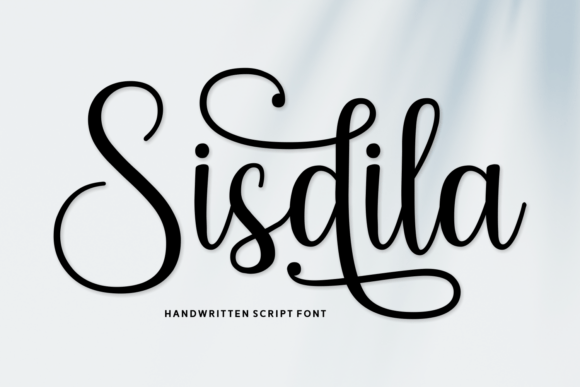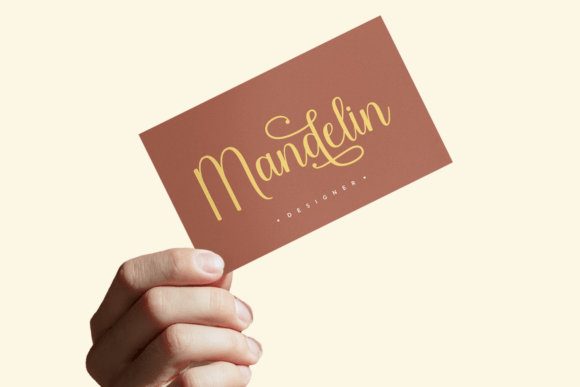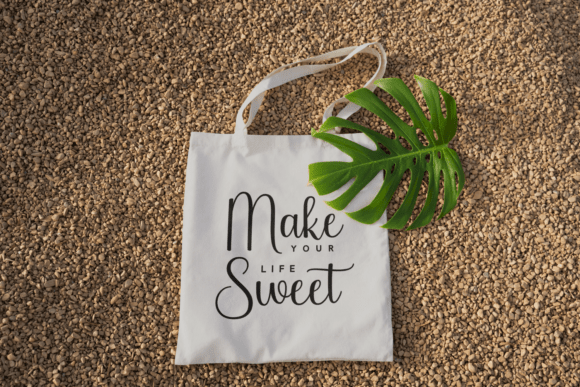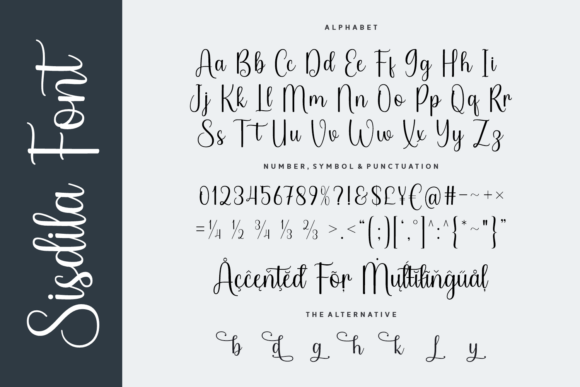
Sisdila Font: Elegant Handwritten Script for Wedding & Logo Design
About the Sisdila Font
The Sisdila Font offers a perfect balance of form and function for your design needs. Sisdila is a graceful handwritten script font with flowing curves and stylish swashes that exude charm and sophistication. Its smooth strokes and well-balanced letterforms make it perfect for branding projects, romantic stationery, feminine packaging, and stylish social media graphics. Sisdila adds a personal and elegant touch to any design.
Sisdila Font Usage Examples
Sisdila Font Example